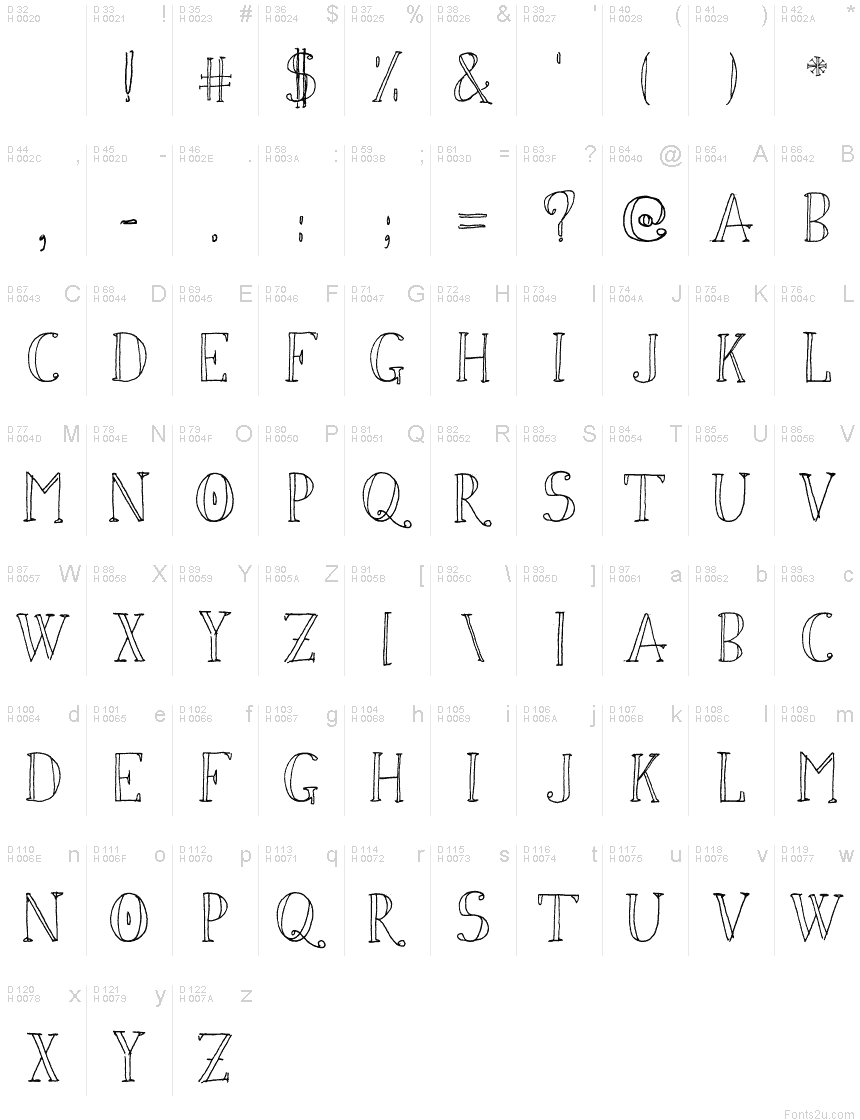
Simon Script
Simon Script is a free outlined display font, released in 2005, with tall caps that borrow from sign-painter script and old poster lettering. The letters feel airy and a little theatrical, mixing looping starts and tapered strokes with narrow, upright forms that keep the alphabet decorative without turning fussy.
This free font fits packaging, boutique branding, cafe menus, poster titles, book covers, and short editorial headings where a light line and hand-drawn swagger do the work. It is especially at home in monograms or title cards, because the caps carry enough flourish to fill space without needing heavy weight.